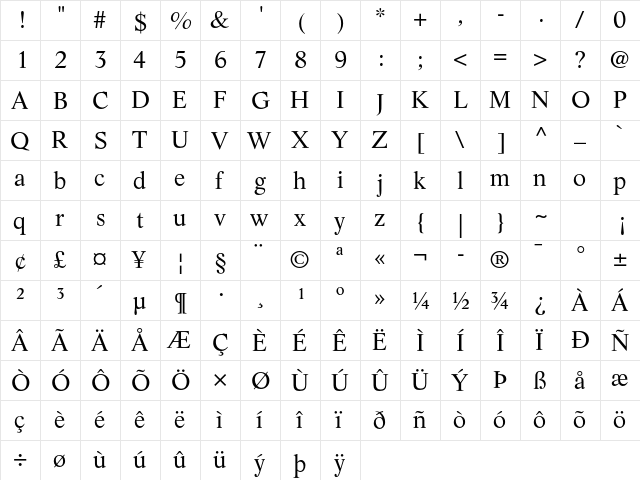
Life LT Std Roman
| Designer | W. Bilz |
Design Context for Life LT Std Typeface
Life LT Std takes a measured approach to typography — its balanced proportions and neutral character make it a reliable workhorse for both digital and print work. Its slender proportions lend an understated elegance to any composition.
Pro Tip: Pair Life LT Std with a font of contrasting weight or personality to build a more expressive typographic hierarchy.